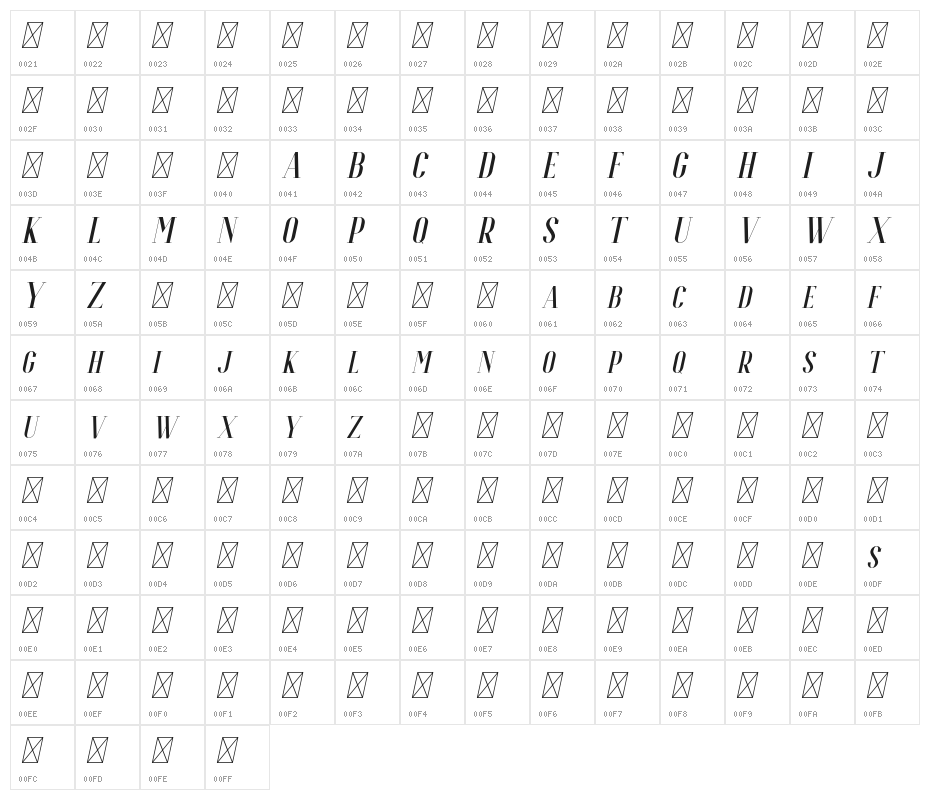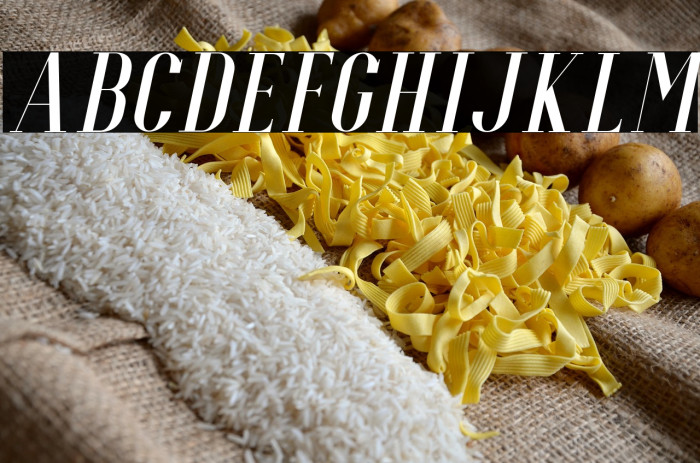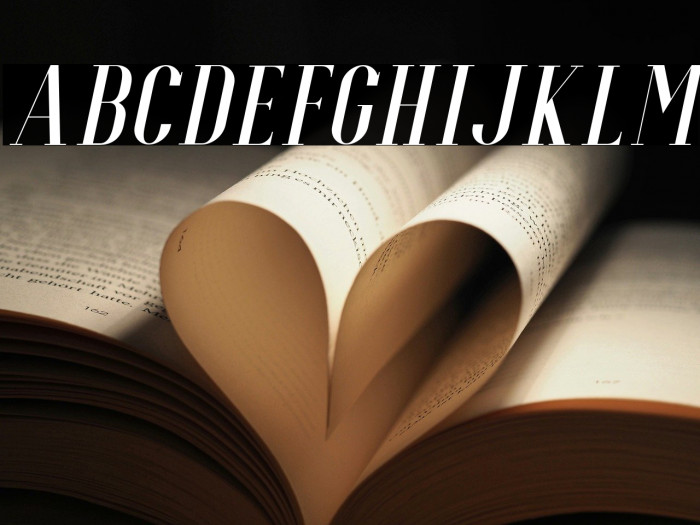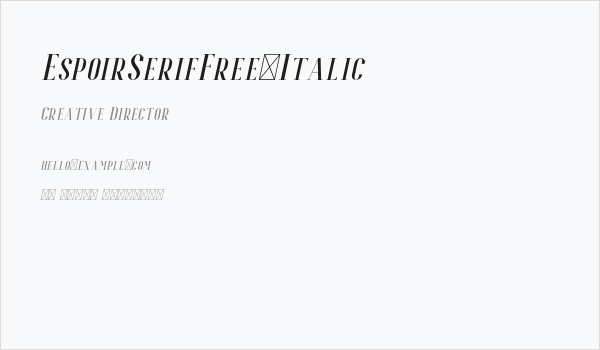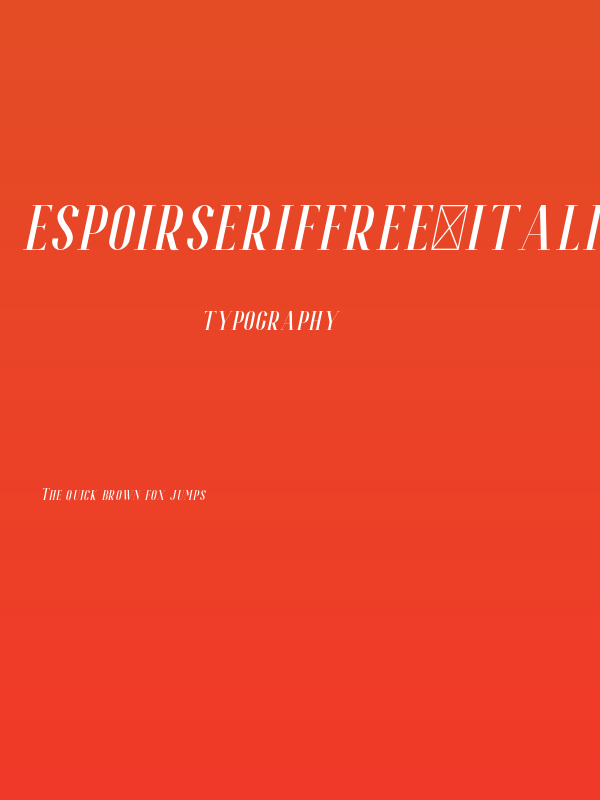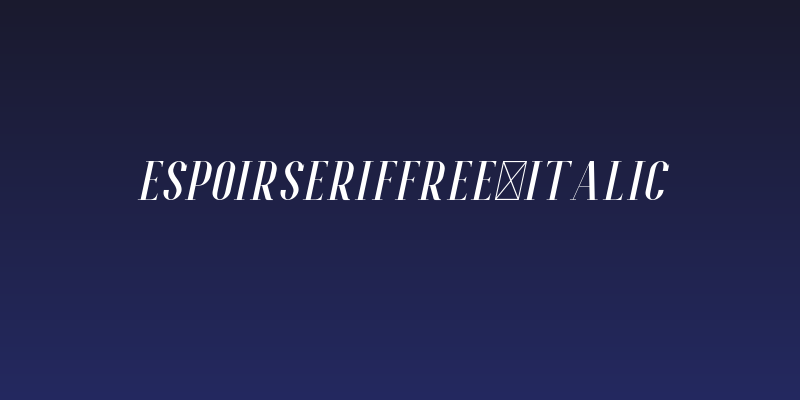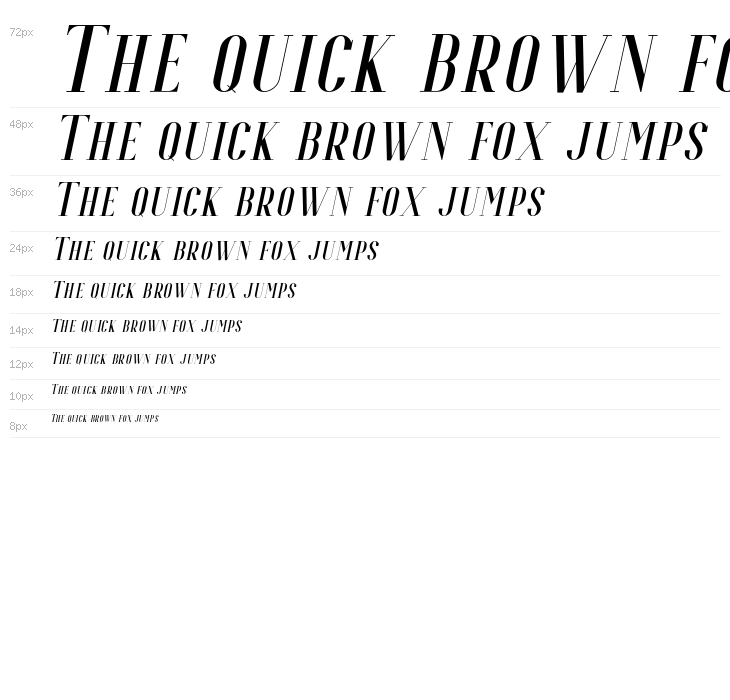
EspoirSerifFree-Italic Font
EspoirSerifFree-Italic Description
This font exudes elegance and sophistication with its refined serif style. The italicized form adds a graceful slant to each character, enhancing its classic appeal. The letters are well-defined with a medium contrast between thick and thin strokes, providing a balanced and readable appearance. The spacing between characters is normal, ensuring clarity and legibility. This font is ideal for projects that require a touch of elegance and tradition, such as formal invitations, editorial design, and branding materials.
| Proposed Projects | Ideal for formal invitations, editorial design, and branding materials. |